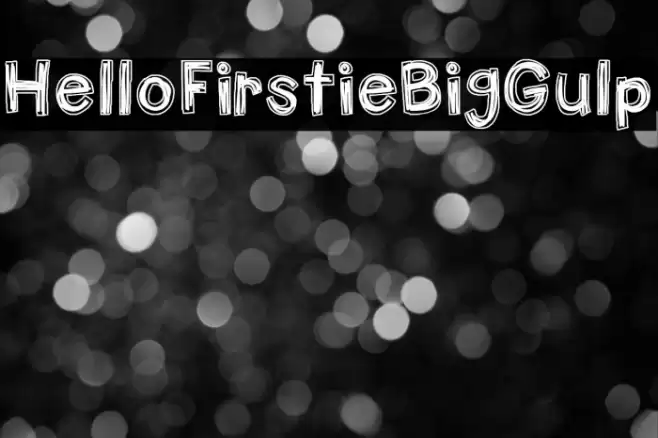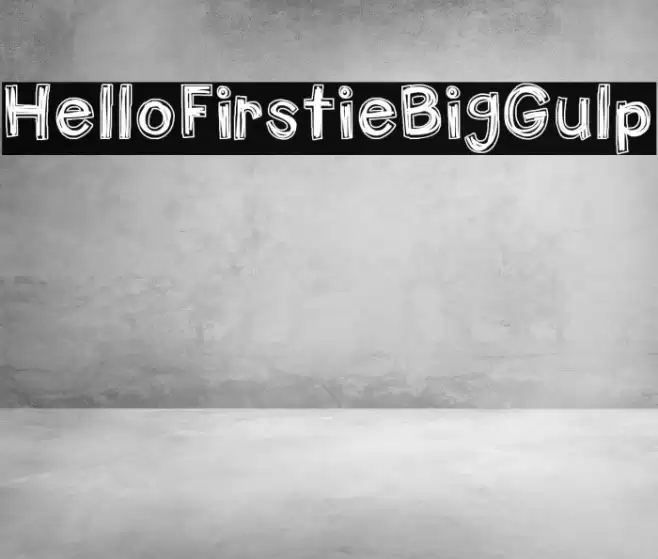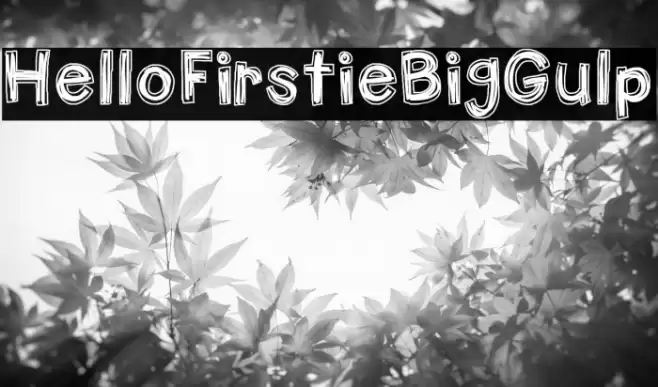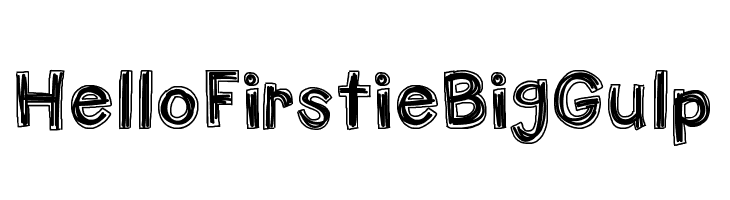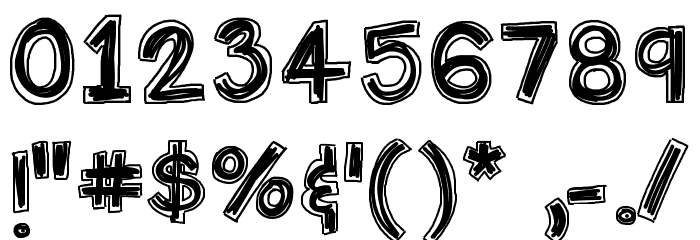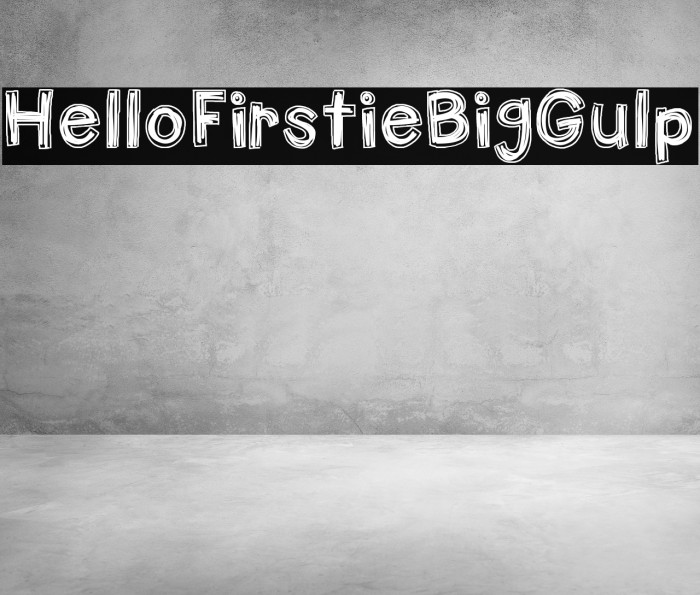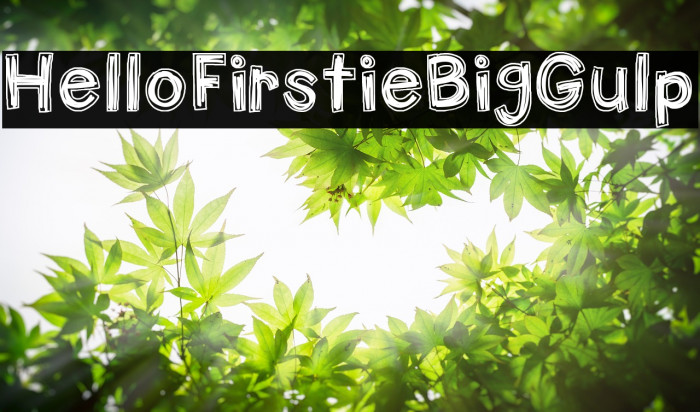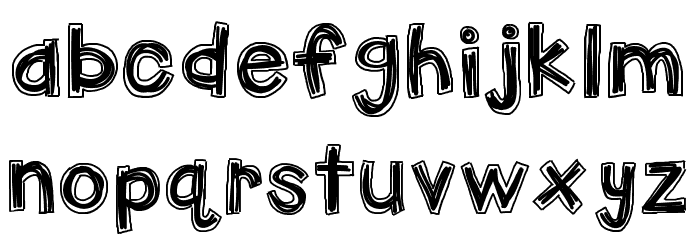
HelloFirstieBigGulp Font
This font features a playful and bold design with a hand-drawn aesthetic. Each character is outlined with a thick black stroke, giving it a cartoonish and dynamic appearance. The letters are slightly irregular, adding to the whimsical feel. The uppercase and lowercase letters maintain a consistent style, while the numbers and special characters follow the same playful theme. This font is perfect for projects that require a fun and informal touch, such as children's books, comic strips, or playful branding.
A playful, hand-drawn font with bold outlines and a whimsical style from Cartoon fonts.
- Proposed Projects: Ideal for children's books, comic strips, playful branding, and informal invitations.
- Overall Style: Playful, Whimsical